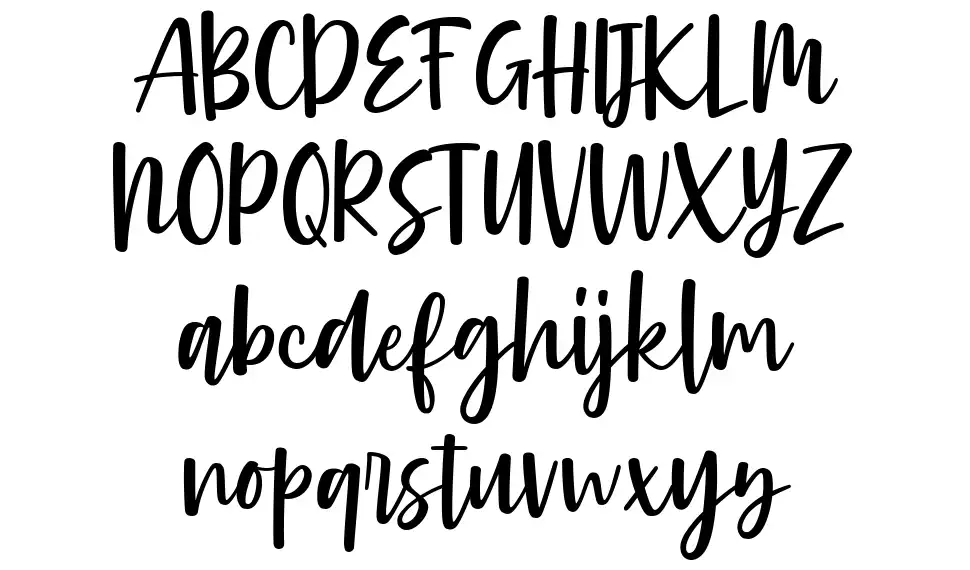
Moonlight Sonata Font
Moonlight Sonata Font By Typehand Studio Fontriver Free download of moonlight sonata font. released in 2019 by typehandstudio and licensed for personal use only. use our font generator to create a custom image that you can download. This font features a lively and expressive handwritten style, characterized by its fluid and dynamic strokes. the uppercase letters are bold and slightly slanted, giving a sense of movement and energy. A playful, handwritten script font with a flowing style. this font features a playful and flowing script style with a handwritten appearance. the letters are connected, giving it a smooth and continuous look. it has a casual and friendly vibe, suitable for creative and informal designs. Download moonlight sonata font for pc mac for free, take a test drive and see the entire character set. moreover, you can embed it to your website with @font face support.
Moonlight Sonata Font By Typehand Studio Fontriver A playful, handwritten script font with a flowing style. this font features a playful and flowing script style with a handwritten appearance. the letters are connected, giving it a smooth and continuous look. it has a casual and friendly vibe, suitable for creative and informal designs. Download moonlight sonata font for pc mac for free, take a test drive and see the entire character set. moreover, you can embed it to your website with @font face support. Font moonlight sonata. examples of this font can be found on the font site exfont, designed by typehand 2019, include the number of glyphs 364 characters. you can find other similar fonts, or fonts in the same family as this font right below. Moonlight sonata font download is available free from fontget. moonlight sonata is a script type font that can be used on any device such as pc, mac, linux, ios and android. Moonlight sonata font is a nice free handwritten font designed by typehand. you are requires a license for promotional or commercial use. typehand studio. please use the pulldown menu to view different character maps contained in this font. unicodeunicode 2.0 and onwards semantics, unicode bmp only. Moonlight sonata is a font. the typeface contains 1 file and supports 45 languages. the font can be used in non commercial use. moonlight sonata was developed typehand studio.
Moonlight Sonata Font Dafont Font moonlight sonata. examples of this font can be found on the font site exfont, designed by typehand 2019, include the number of glyphs 364 characters. you can find other similar fonts, or fonts in the same family as this font right below. Moonlight sonata font download is available free from fontget. moonlight sonata is a script type font that can be used on any device such as pc, mac, linux, ios and android. Moonlight sonata font is a nice free handwritten font designed by typehand. you are requires a license for promotional or commercial use. typehand studio. please use the pulldown menu to view different character maps contained in this font. unicodeunicode 2.0 and onwards semantics, unicode bmp only. Moonlight sonata is a font. the typeface contains 1 file and supports 45 languages. the font can be used in non commercial use. moonlight sonata was developed typehand studio.
Moonlight Sonata Font Dafont Moonlight sonata font is a nice free handwritten font designed by typehand. you are requires a license for promotional or commercial use. typehand studio. please use the pulldown menu to view different character maps contained in this font. unicodeunicode 2.0 and onwards semantics, unicode bmp only. Moonlight sonata is a font. the typeface contains 1 file and supports 45 languages. the font can be used in non commercial use. moonlight sonata was developed typehand studio.